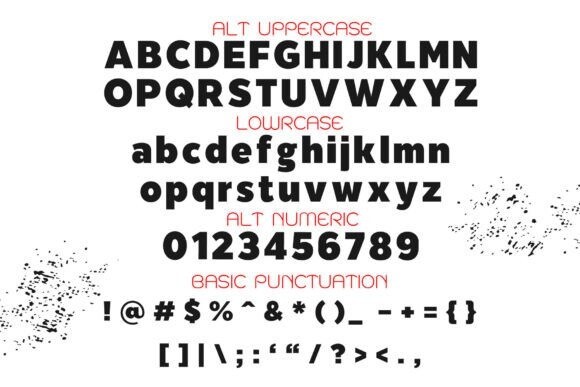
Camper Van Font
Camper Van is a bold, dramatic, and chunky-lettered display font. Expertly designed to make your creation look out of this world, this font has the potential to take your creative ideas far further. Keep in mind that the font is PUA encoded, meaning that you can access all delightful glyphs and swashes effortlessly.